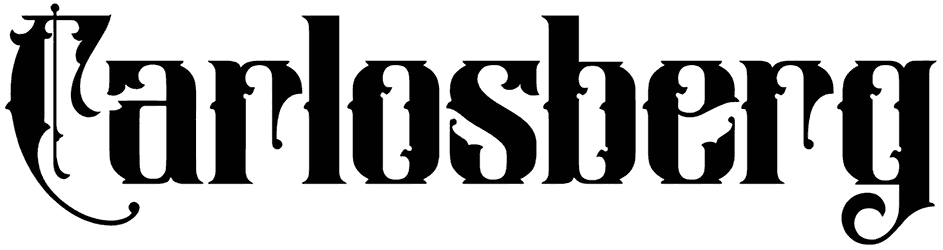
Carlosberg Font
With the charm of vintage words, create a creative design that will win the hearts of lovers of this genre. This Victorian font, named Carlosberg, has an antique style that would be an amazing choice for a lot of designs. As a unique choice for a lot of items like posters, movies, games, etc., it will be a catchy showcase and can make them salient.